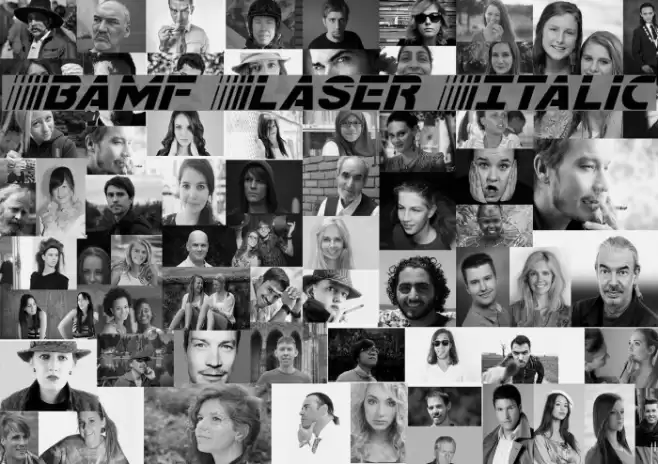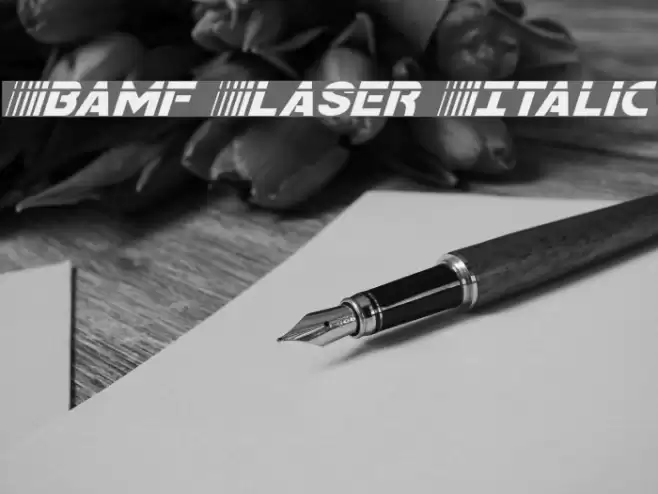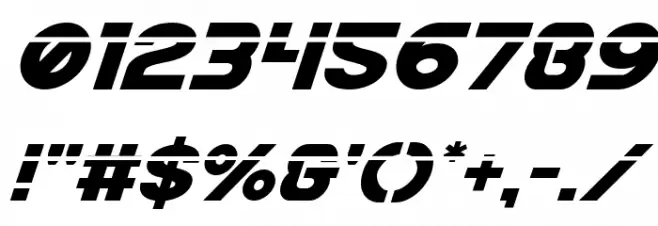
Bamf Laser Italic Font
Bamf Laser Italic Description
This font features a bold and dynamic style with a futuristic flair. The uppercase letters are designed with a strong, angular appearance, giving a sense of movement and speed. The italicized slant adds to its energetic and modern look, making it ideal for attention-grabbing headlines. The numbers and special characters maintain the same boldness and angularity, ensuring consistency across all characters. The font's design is reminiscent of sci-fi themes and high-tech environments, making it suitable for projects that require a cutting-edge aesthetic.
A bold, futuristic italic font with angular, dynamic characters from Uncategorized fonts.
- Proposed Projects: Ideal for sci-fi movie posters, tech company logos, video game titles, and futuristic-themed event flyers.